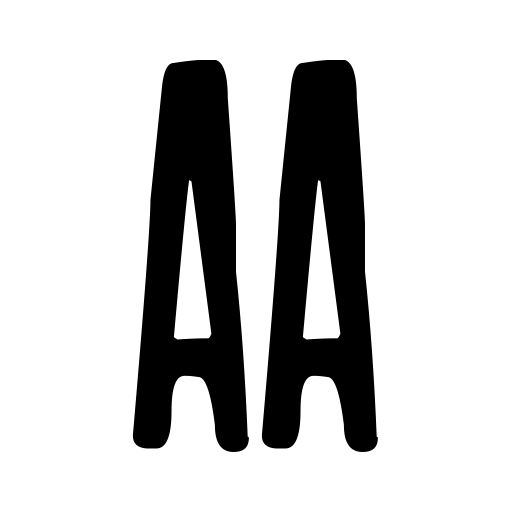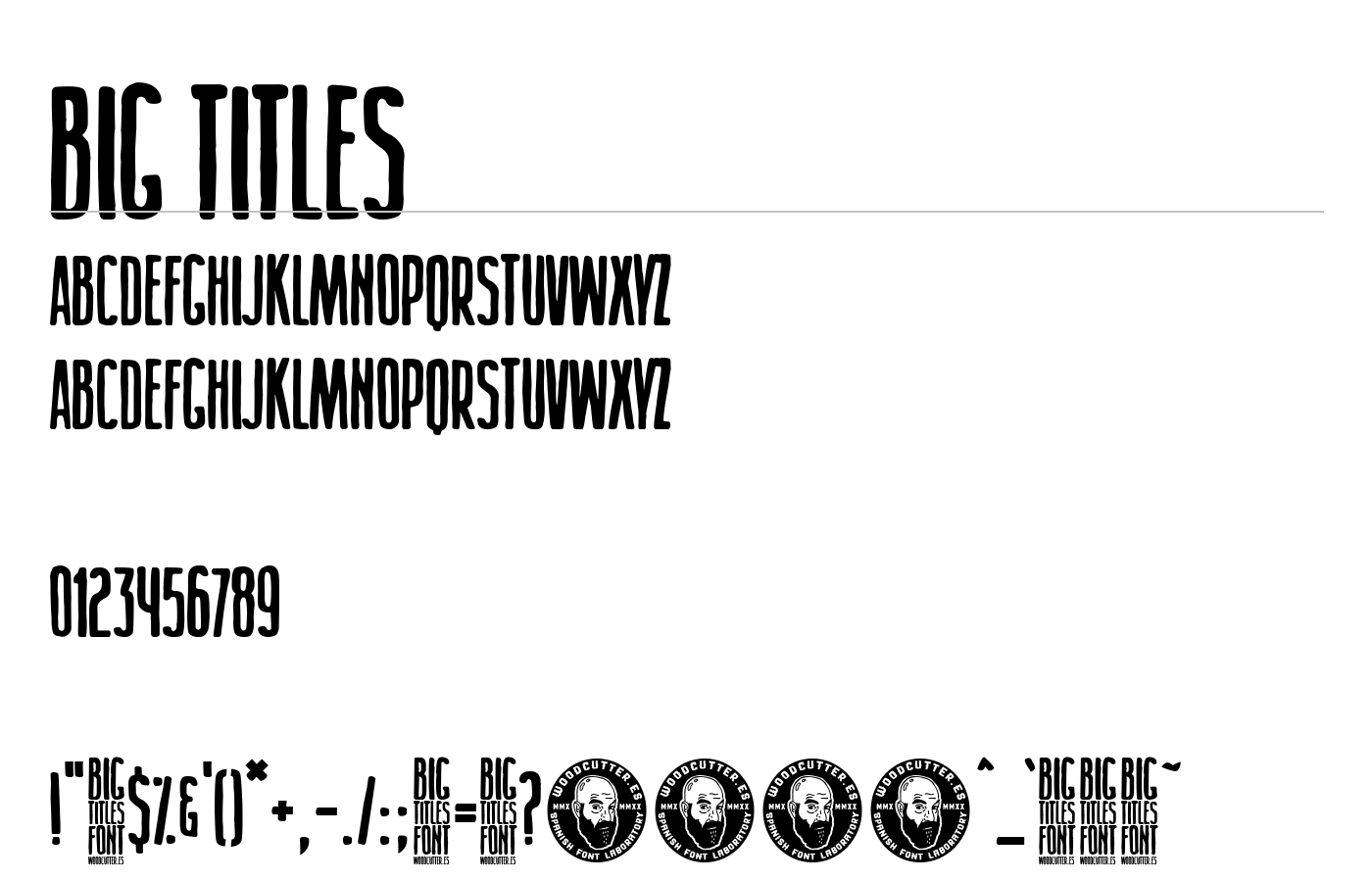
Big Titles Font is a tall, narrow sans serif typeface with a playful, hand-drawn feel. Its condensed letterforms, moderate stroke contrast, and quirky irregularities give it a casual, approachable style that works great for eye-catching headlines, posters, and branding with a fun, informal vibe. This font shines in bold displays where its unique personality can stand out and add charm.
Big Titles Font